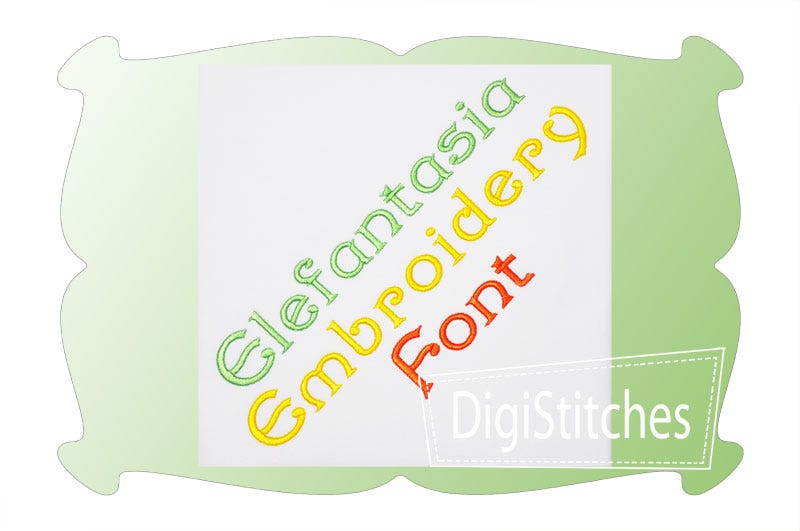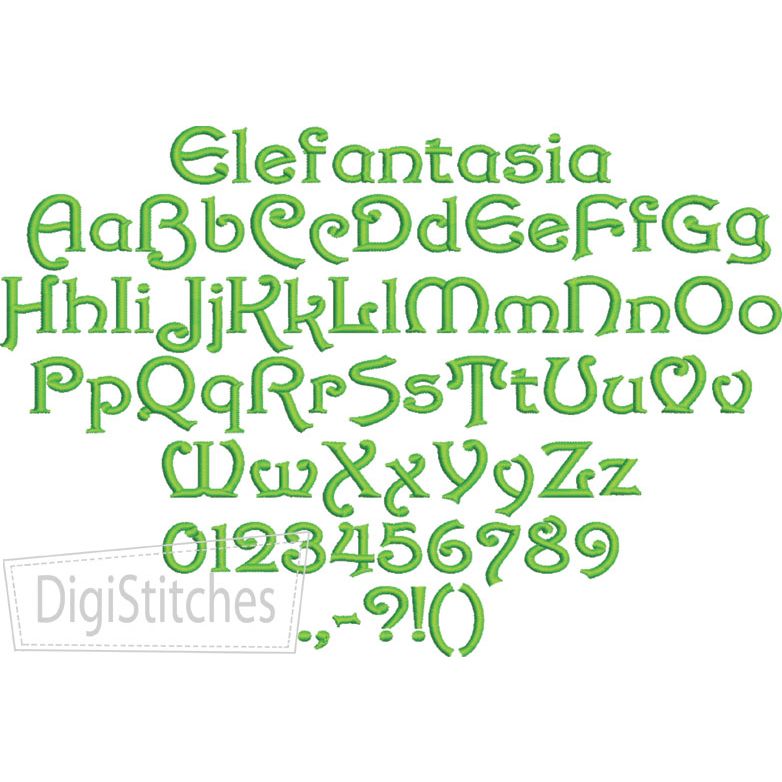
Elefantasia Satin Stitch Embroidery Font
Elefantasia Embroidery Font
Elefantasia is a unique embroidery font with just enough curl to be cute.
Featuring super bold letters that really stand out on t-shirts and projects.
Girls are of all ages will love this font!
Upper case letters A thru Z, lower case letters a thru z, numbers 0-9, punctuation as shown.